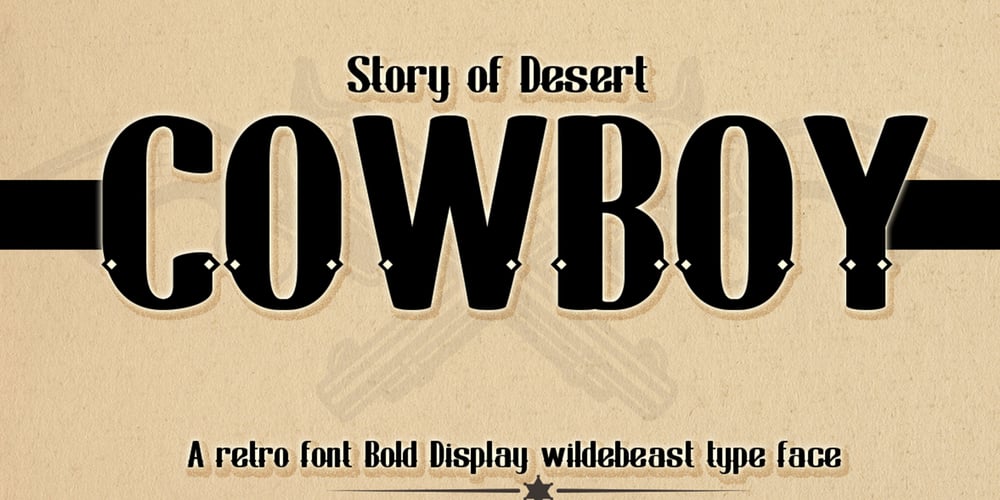
Wildebeast 3 Font Family was designed by Maulana Nasov and published by AsbakLab. Wildebeast 3 contains 4 styles and family package options. Wildebeast is a type of retro font display with a classic and distinctive shape that gives an old school feel in it with the addition of a combination of each letter giving an additional impression to many of your projects there are many things you can do with this font, namely you can use it as a novel book title, classic movie title and your classic stories on social mediaThank you very much